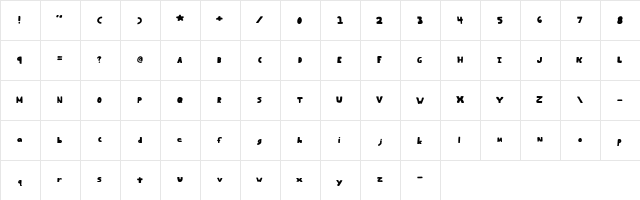
Beans Plain Regular
| Foundry | Bionic Type |
| Designer | Swat Kat |
Design Context for Beans Plain Typeface
Beans Plain offers clean, dependable letterforms without strong stylistic allegiance, making it a practical choice for designers who need flexibility.